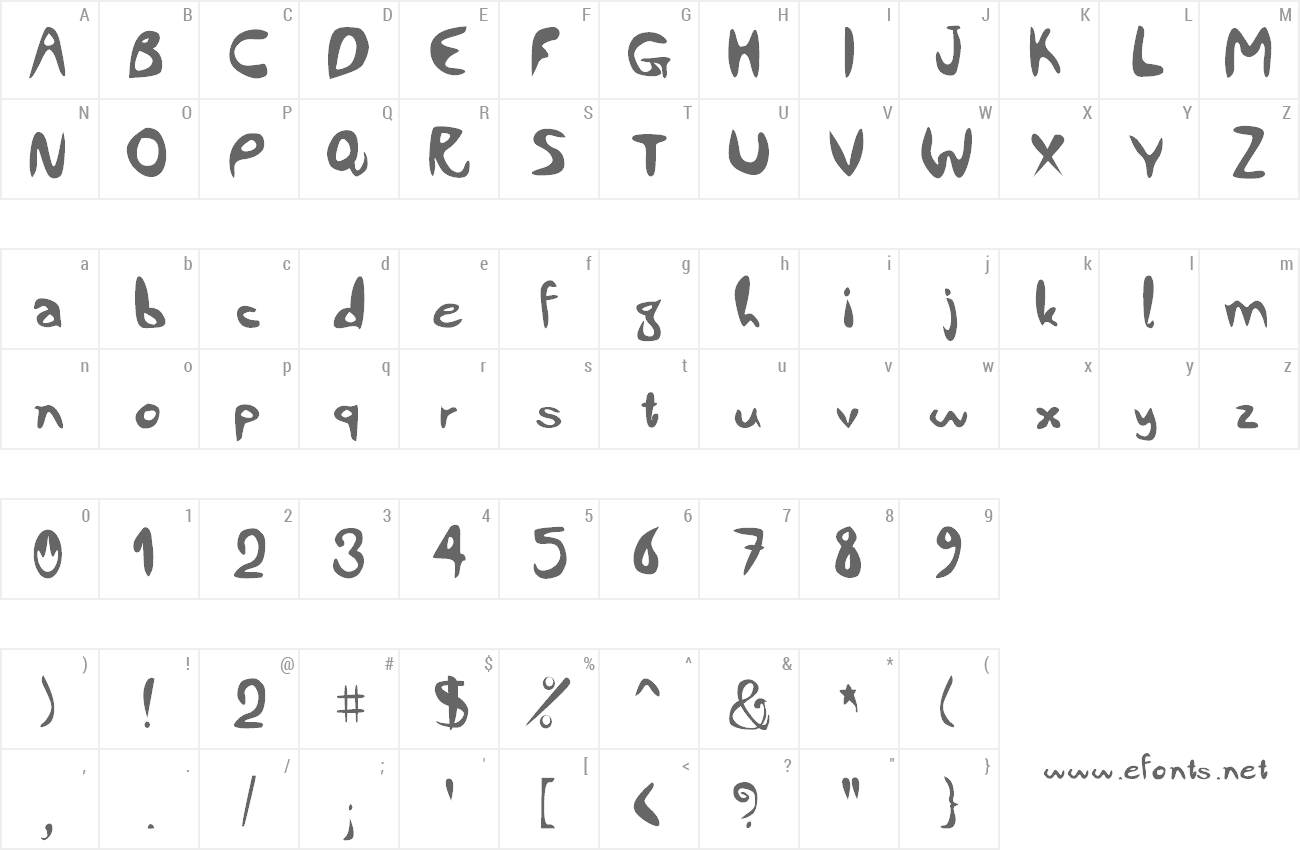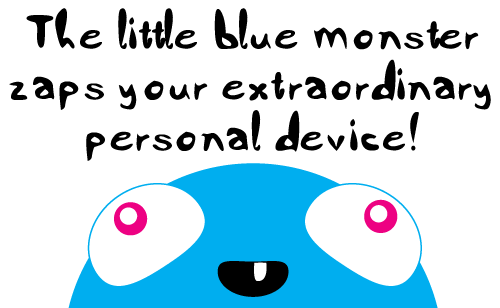
| Font name: | Comic City |
| Author: | Lazaros Raphael |
| Note by Lazaros Raphael | |
This is a font I made inspired by Comic Sans MS and I Hate Comic Sans :) I've had a lot of trouble with unwarranted commercial use. You can now use it as you like, attribution required. |